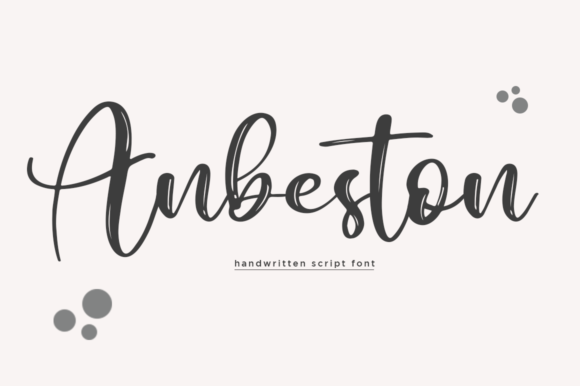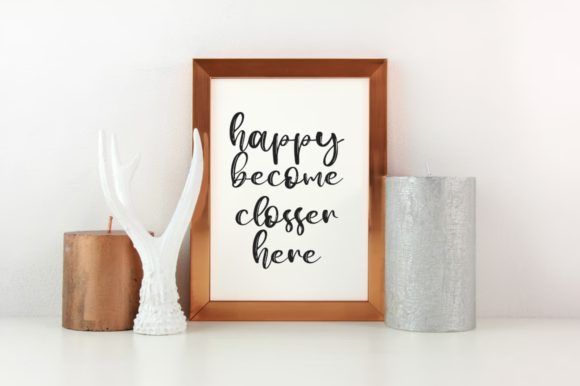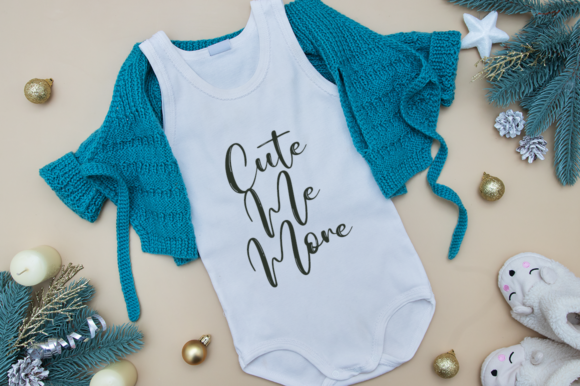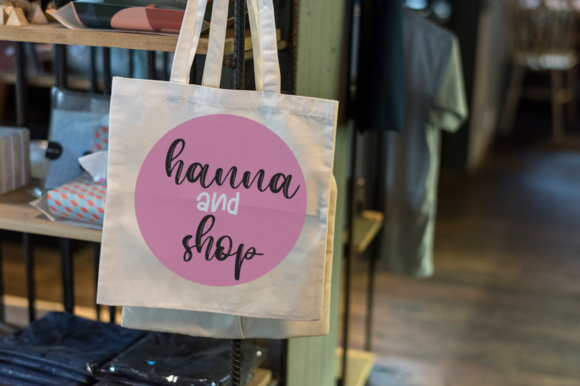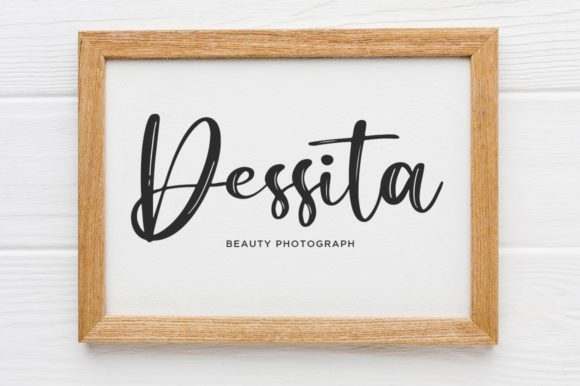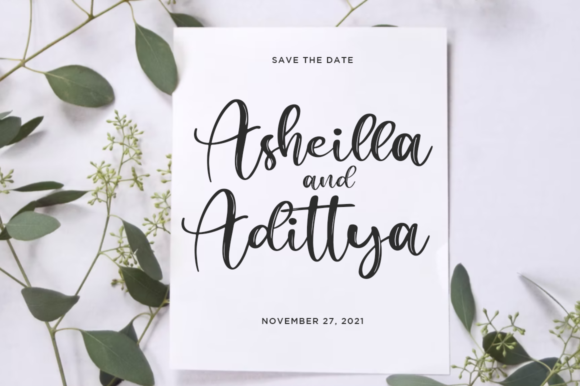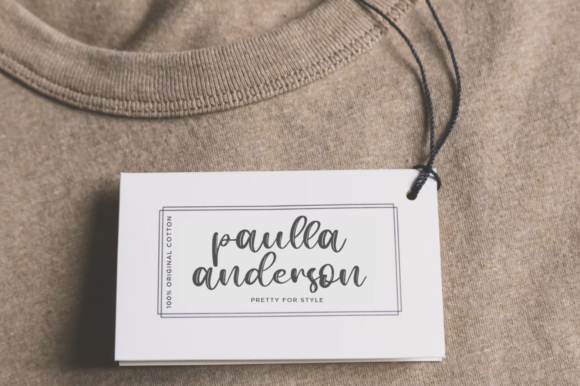
An Elegant Touch: Unlocking the Charm of Anbeston Script Font
Have you ever been browsing through a beautiful wedding invitation and suddenly felt the urge to create something similar? Maybe it was the elegant handwriting or the way the words seemed to dance on the page. For designers, that moment of inspiration is what drives us to create something truly special. And when it comes to adding a handwritten touch to our designs, Anbeston Script Font is a game-changer.
This beautiful script font is perfect for any design project that requires a touch of elegance and charm. From wedding invitations to thank you cards, quotes, and logos, Anbeston Script Font is a versatile choice that will elevate your designs to the next level. Whether you’re a seasoned designer or just starting out, this font is a valuable addition to your toolkit.
- Unique Characteristics: Hand-drawn design with elegant, cursive script style and ornate details
- Font Style: Available in regular and bold weights, with optional ligatures and swashes for added flair
Anbeston Script Font Review
Overall, I think the Anbeston Script Font is a solid choice for designers looking for a elegant, handwritten font. ✨ Here are some of its standout features:
- Beautiful, flowing connections between letters, making it perfect for creative, artistic projects.
- Multiple font weights and styles to choose from, allowing for a high level of customization.
- Wide language support, making it suitable for projects that require text in multiple languages.
- Lack of clarity in certain letterforms, which may make it difficult to read at smaller font sizes.
- No support for ligatures, which can lead to awkward letter combinations.
Overall, I would give the Anbeston Script Font 4 out of 5 stars. It’s a great choice for designers who want a beautiful, handwritten font for creative projects. However, its limitations may make it less suitable for projects that require high readability or precision typography.
For best results, use Anbeston Script Font for titles, headings, and emphasis.
It’s ideal for creative projects, such as invitations, posters, and social media graphics.
Experiment with different font sizes and colors to achieve a unique look.
Alternatives to Anbeston Script Font
Playfair Display is a luxurious and elegant script font, perfect for high-end branding, invitations, and special occasions. It features intricate flourishes and ornate details, making it a great choice for designers who want to add a touch of sophistication to their designs.
Comparison to Anbeston Script Font: While both fonts have a script feel, Playfair Display is more ornate and luxurious, making it a better choice for high-end designs. Anbeston Script Font is more versatile and can be used for a wider range of designs.
Carolyna Pro is a modern and elegant script font, perfect for fashion, beauty, and lifestyle brands. It features a flowing and connected feel, making it a great choice for designers who want to create a sense of movement and energy in their designs.
Comparison to Anbeston Script Font: Carolyna Pro is more modern and sleek, while Anbeston Script Font is more vintage and traditional. Carolyna Pro is a better choice for designers who want to create a contemporary and fashion-forward look.
Great Vibes is a beautiful and elegant script font, perfect for wedding invitations, greeting cards, and other special occasions. It features a flowing and connected feel, making it a great choice for designers who want to create a sense of romance and whimsy in their designs.
Comparison to Anbeston Script Font: Great Vibes is more romantic and whimsical, while Anbeston Script Font is more versatile and can be used for a wider range of designs. Great Vibes is a better choice for designers who want to create a dreamy and ethereal look.